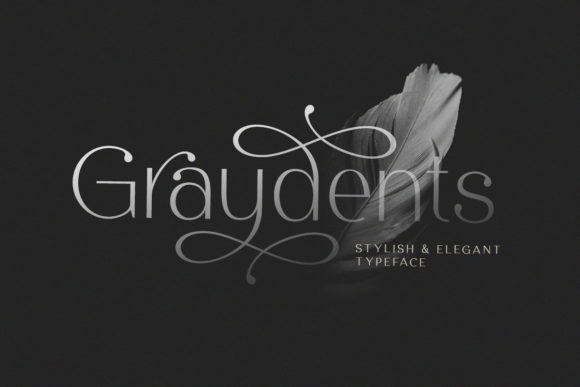
Introducing Graydents Font: Elevate Your Designs with Elegance and Whimsy
In the world of typography, fonts play a crucial role in shaping the visual identity of a project. A well-chosen font can elevate your design, convey the right message, and leave a lasting impression on your audience. If you’re on the hunt for a stylish and elegant sans serif font that can add a touch of magic to your project, look no further than Graydents Font. In this article, we’ll dive into the world of Graydents, exploring its unique features, benefits, and uses.
What is Graydents Font?
Graydents Font is a modern sans serif font that exudes elegance and sophistication. Its clean lines, precise curves, and balanced proportions make it an excellent choice for a wide range of design projects. Whether you’re working on a branding campaign, website design, or marketing materials, Graydents Font is sure to make your project stand out.
The Unique Features of Graydents Font
So, what sets Graydents Font apart from other sans serif fonts? Here are a few of its unique features:
- Modern yet Whimsical Style: Graydents Font boasts a modern design with a hint of whimsy, making it perfect for projects that require a touch of playfulness and sophistication.
- Elegant and Refined: The font’s clean lines, precise curves, and balanced proportions give it an elegant and refined look that’s sure to impress.
- Highly Versatile: Graydents Font is highly versatile, making it suitable for a wide range of design projects, from branding and advertising to website design and digital marketing.
- Excellent Legibility: The font’s clear and precise design ensures excellent legibility, even at small sizes, making it perfect for body text and captions.
The Benefits of Using Graydents Font
Using Graydents Font in your design project can bring numerous benefits. Here are a few:
- Enhanced Visual Appeal: Graydents Font’s elegant and refined design is sure to enhance the visual appeal of your project, making it more engaging and attention-grabbing.
- Improved Brand Identity: A well-chosen font can help establish a strong brand identity. Graydents Font’s unique style can help differentiate your brand from competitors and create a lasting impression.
- Increased Readability: The font’s excellent legibility ensures that your text is easy to read, making it perfect for body text, captions, and other written content.
How to Use Graydents Font in Your Design Project
Using Graydents Font in your design project is easy. Here are a few tips to get you started:
- Pair it with Other Fonts: Graydents Font works well with other fonts, especially serif fonts. Experiment with different font combinations to create a unique visual identity.
- Use it for Headings and Body Text: Graydents Font is suitable for both headings and body text. Use it to create a consistent visual identity throughout your project.
- Experiment with Colors and Textures: Graydents Font looks great in various colors and textures. Experiment with different colors and textures to add depth and interest to your design.
In conclusion, Graydents Font is a stylish and elegant sans serif font that’s perfect for designers looking to add a touch of magic to their project. Its modern yet whimsical style, elegant design, and excellent legibility make it an excellent choice for a wide range of design projects. Whether you’re working on a branding campaign, website design, or marketing materials, Graydents Font is sure to elevate your design and leave a lasting impression on your audience.
- What is Graydents Font?: Graydents Font is a modern sans serif font that’s designed to add a touch of elegance and whimsy to your design project.